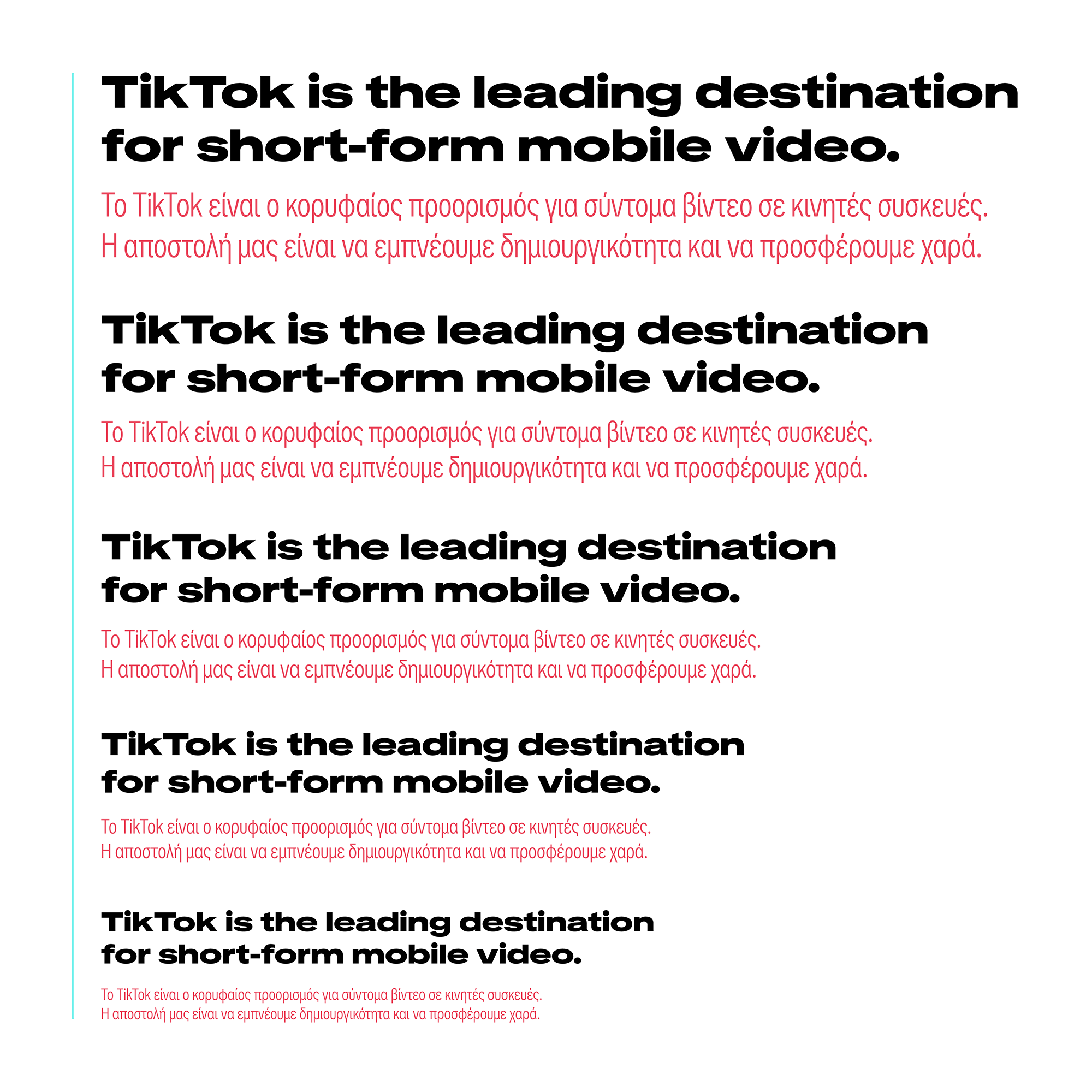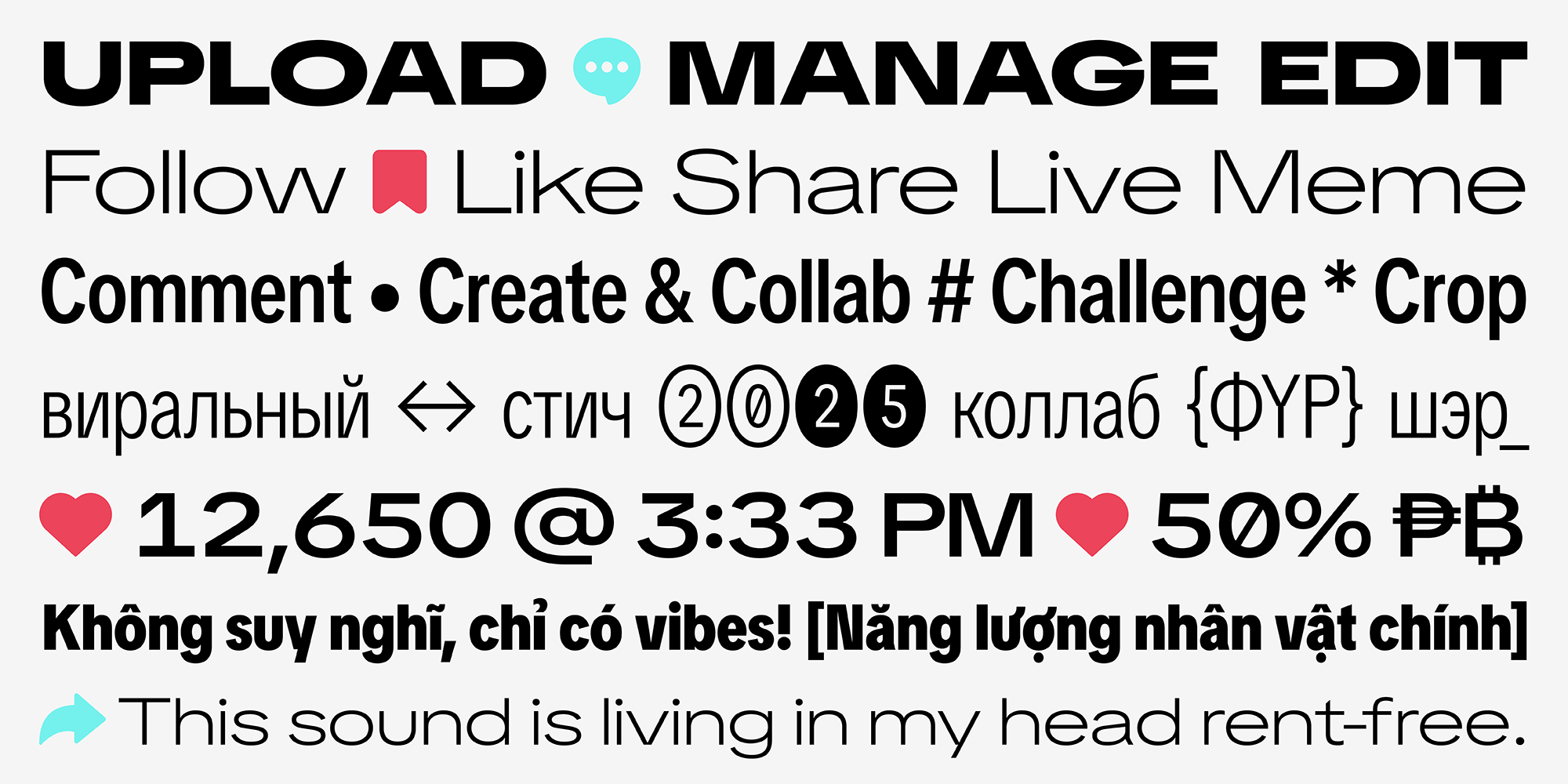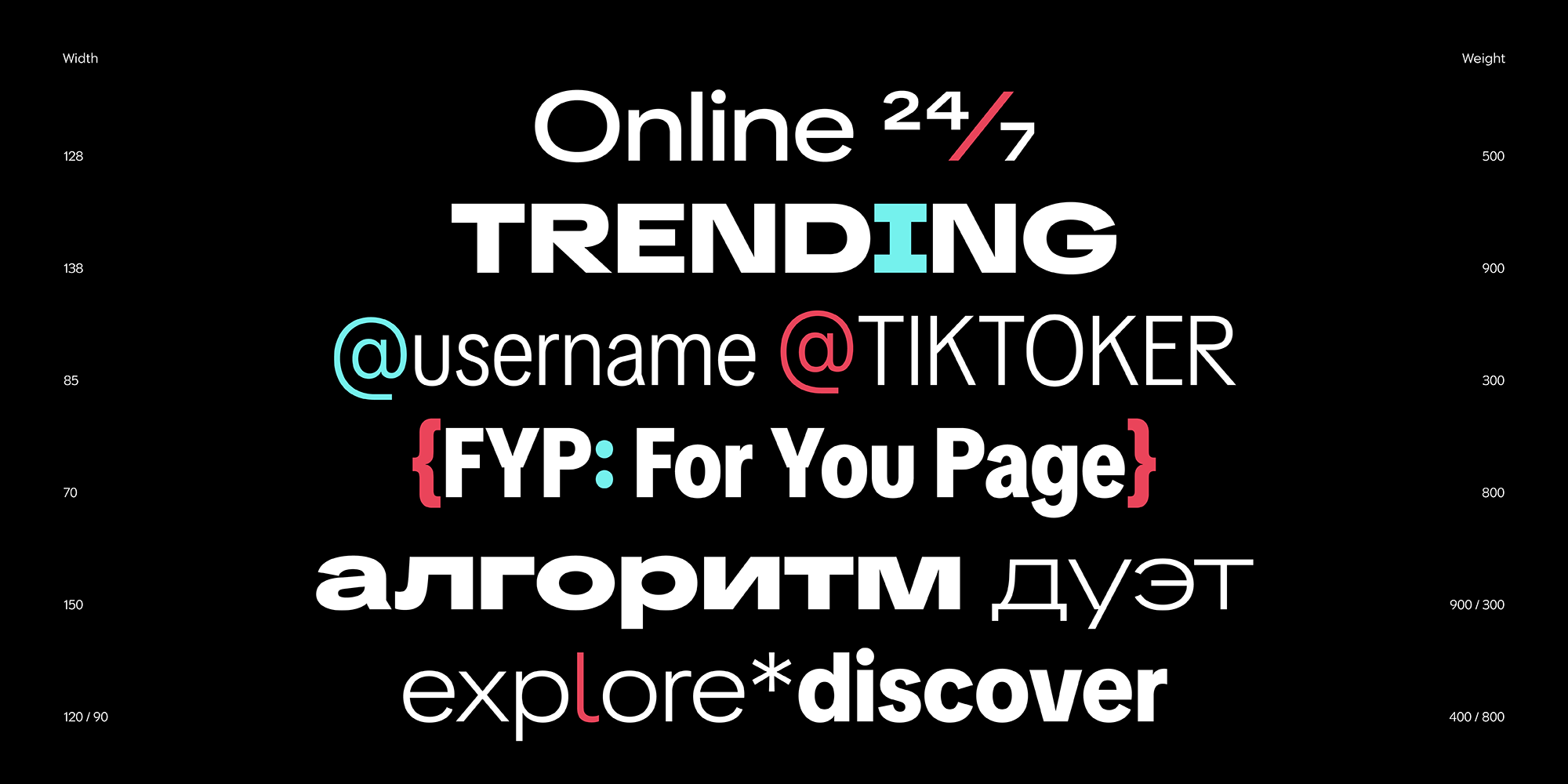
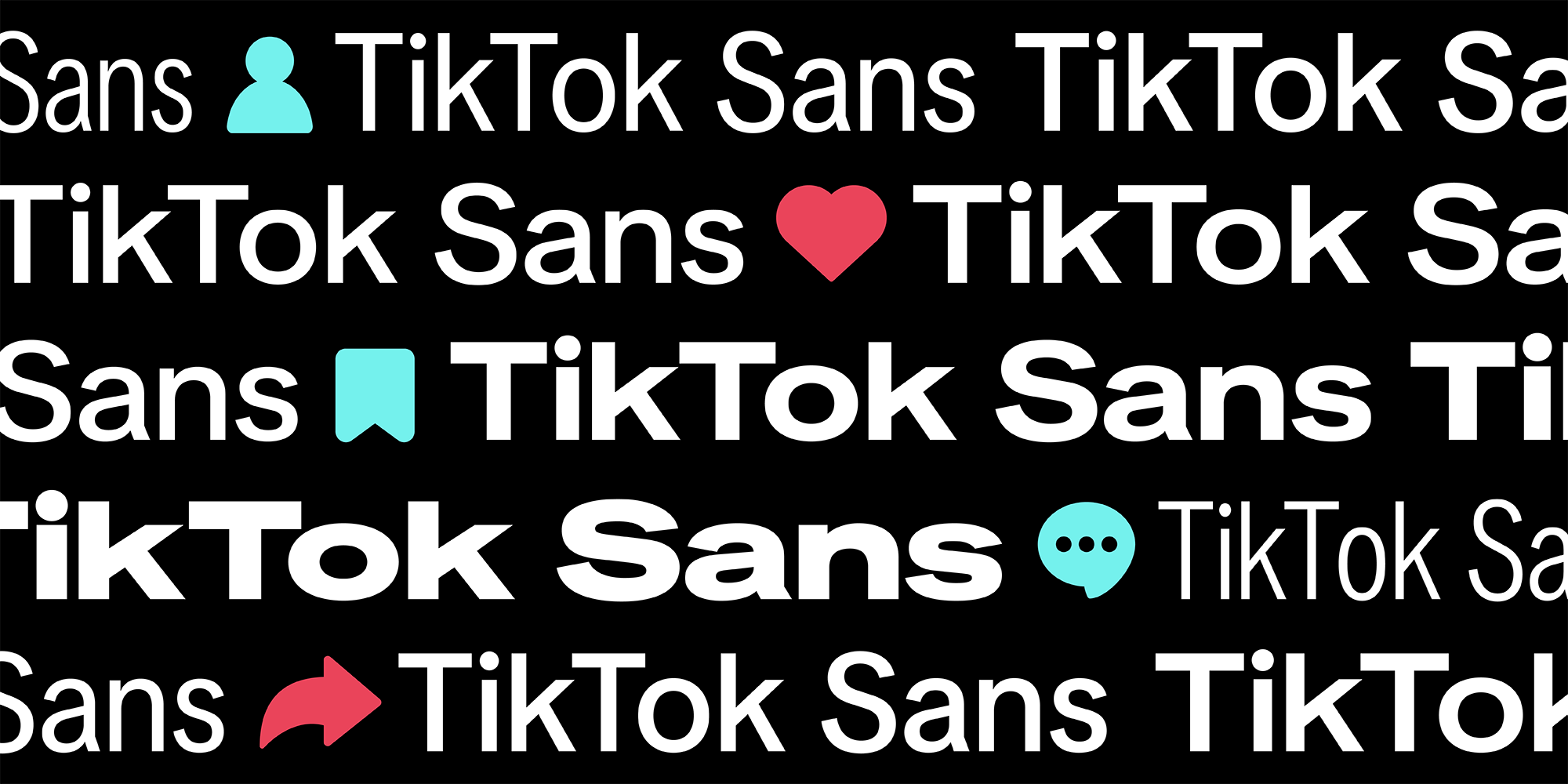
In collaboration, TN staff, partner Contrast Foundry, and engineer Aaron Bell added a width axis, improved Greek and Cyrillic, and optimized fonts for performance across platforms. Notably, TikTok made the uncommon decision to open-source the final type family—providing a versatile, high-quality, variable font to everyone.
To keep pace with its growth, TikTok needed a versatile and robust typographic system. In 2023, TikTok switched from their existing type palette to their own, custom TikTok Sans, designed in collaboration with Swiss foundry Grilli Type. The new typeface replaced TikTok’s mix of fonts, unifying the app and marketing under a consistent look. TikTok Sans was designed to reflect the platform’s personality—playful yet clear—with bigger openings and cleaner shapes, resulting in better legibility.
TikTok launched the typeface in the app and across branding across a range of three scripts: Latin, Greek, and Cyrillic, with weight, slant, optical size, and other generated variable axes. After the launch, the TikTok team demanded even more precision, variability, and testing. To answer their needs, TikTok turned to Type Network for technical expertise, design excellence, and open-sourcing experience.
TN assembled a team of partner designers and engineers to work alongside our staff. The goal was to solve the technical challenges while preserving TikTok’s unique identity. Working closely with TikTok’s design team—which takes a thoroughly data-driven approach—TN delivered in rapid review intervals. This dialogue meant TikTok could test iterations of the font in production environments and give feedback in real-time, ensuring measurable progress towards their business goals.
—Maria Doreuli, Contrast Foundry
As the collaboration progressed, the two teams discovered the need to expand TikTok Sans’s width range, accommodating buttons, calls-to-action, fine print, advertising, and a myriad other typesetting needs. To accomplish this, we brought on TN partner Contrast Foundry to draw new masters.
To add a width axis that would allow the letters to compress or expand for different design needs, Contrast Foundry’s designers Maria Doreuli and Krista Radoeva drew four new masters at the typeface’s Display optical size—Display Condensed Light, Display Condensed Black, Display Expanded Light, and Display Expanded Black—giving TikTok Sans much wider and narrower options than before.
Rather than drawing all the missing masters at once (including Text masters), TN and Contrast Foundry took a “sparse-masters” approach. This meant drawing one master at a time, thoroughly testing how the typeface’s “safe range” grew, then strategically deciding which master to add next. This approach allowed the team to keep the file size down while maintaining focus on TikTok’s emerging needs.
The slant axis, which had been generated completely with custom scripts, posed another opportunity to reduce file size and add precision. While most of the scripted results were acceptable, there were numerous forms which lacked refinement and quality. To fix this, TN developed a method by which the typeface uses a mix of generated forms and manually drawn glyphs, giving us full control over the results without increasing the file size.
Sparse masters for the width axis and sparse glyphs for the slant axis offered substantial benefits: High quality and robust axes without ballooning the file size.
To ensure consistency across scripts, designers at Contrast Foundry refined the Greek and Cyrillic characters already present in TikTok Sans. Nuanced adjustments helped align the tone, proportions, and optical polish of the non-Latin characters with the rest of the typeface. The subtle improvements enhanced clarity and cohesion across the super family.
—Maria Doreuli, Contrast Foundry
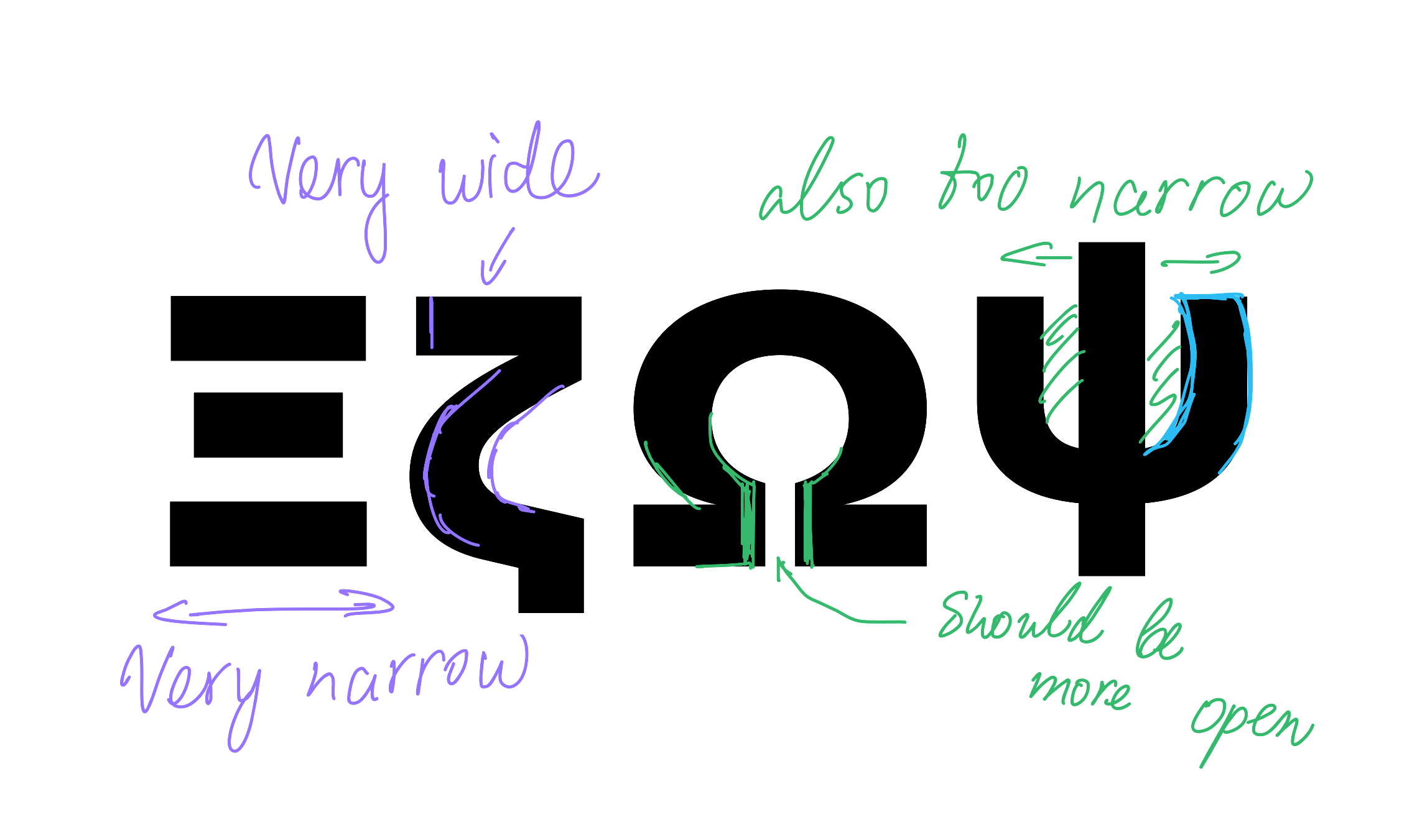
Contrast Foundry pored over every glyph in the typeface to find even small opportunities for improvement.
Creating a beautiful, functional font isn’t just about drawing letters. The design requires technical finesse so that the font renders crisply on various screens. Hinting prepares a font for the multiplicity of devices the users of platforms like TikTok use—telling the font how to display cleanly at small sizes or on low-resolution devices.
Hinting a variable font poses a challenge, only increased with open-source distribution. To tackle this, Type Network partnered with hinting expert Aaron Bell, who has worked with the company on several large projects. Bell scripted instructions to align strokes to pixel grids and prevent blur or distortion at tiny sizes, ensuring sharpness and readability at every size.
Hinting a variable font (which can morph into countless weight and width combinations) is a complex assignment, but Bell achieved a clarity that users can see for themselves.